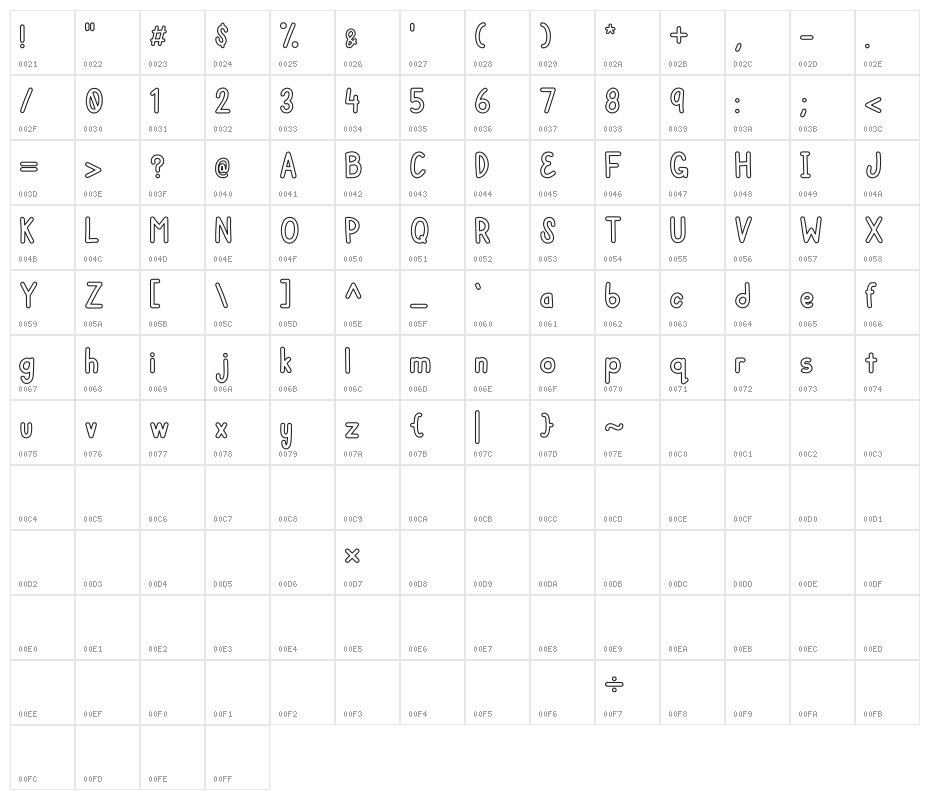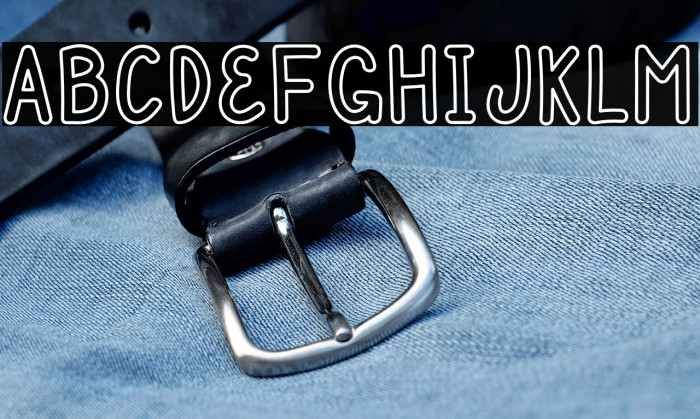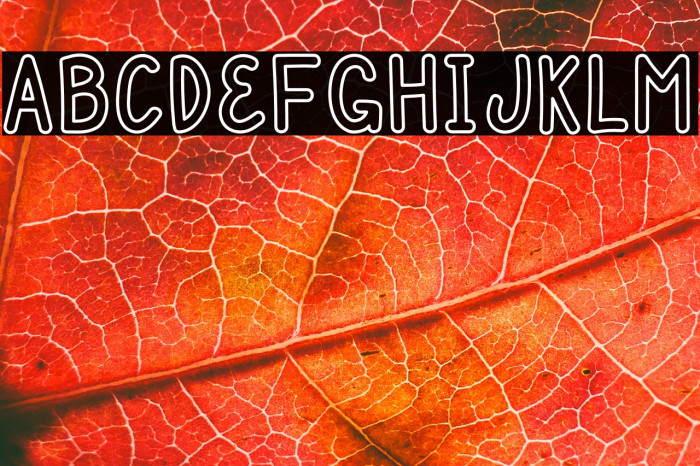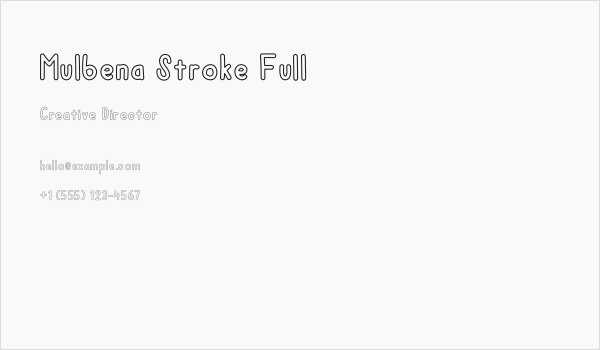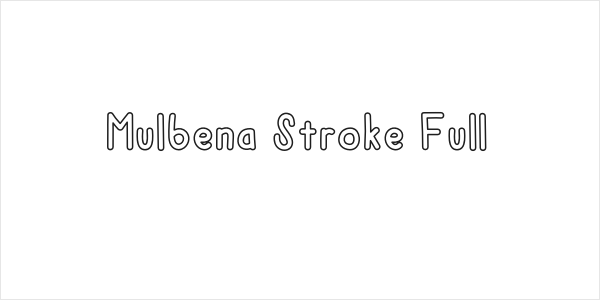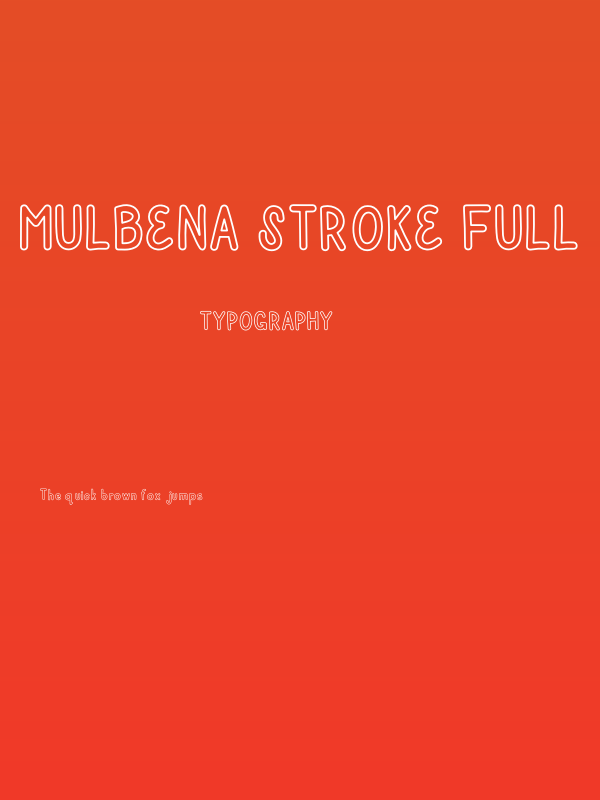
Mulbena Stroke Full Font
Mulbena Stroke Full Description
This playful and bold font features a distinct outline style that gives it a unique and eye-catching appearance. Each character is crafted with a thick, uniform stroke that creates a hollow effect, making it ideal for designs that require a fun and informal touch. The uppercase and lowercase letters maintain a consistent style, with rounded edges and a slightly whimsical feel. The numbers and special characters are equally bold and maintain the same outlined aesthetic, ensuring a cohesive look across all text elements. This font is perfect for projects that aim to capture attention and convey a sense of creativity and playfulness.
| Overall Style | Playful, Creative, Fun |
| Proposed Projects | Ideal for children's book covers, playful branding, posters, and creative social media graphics. |